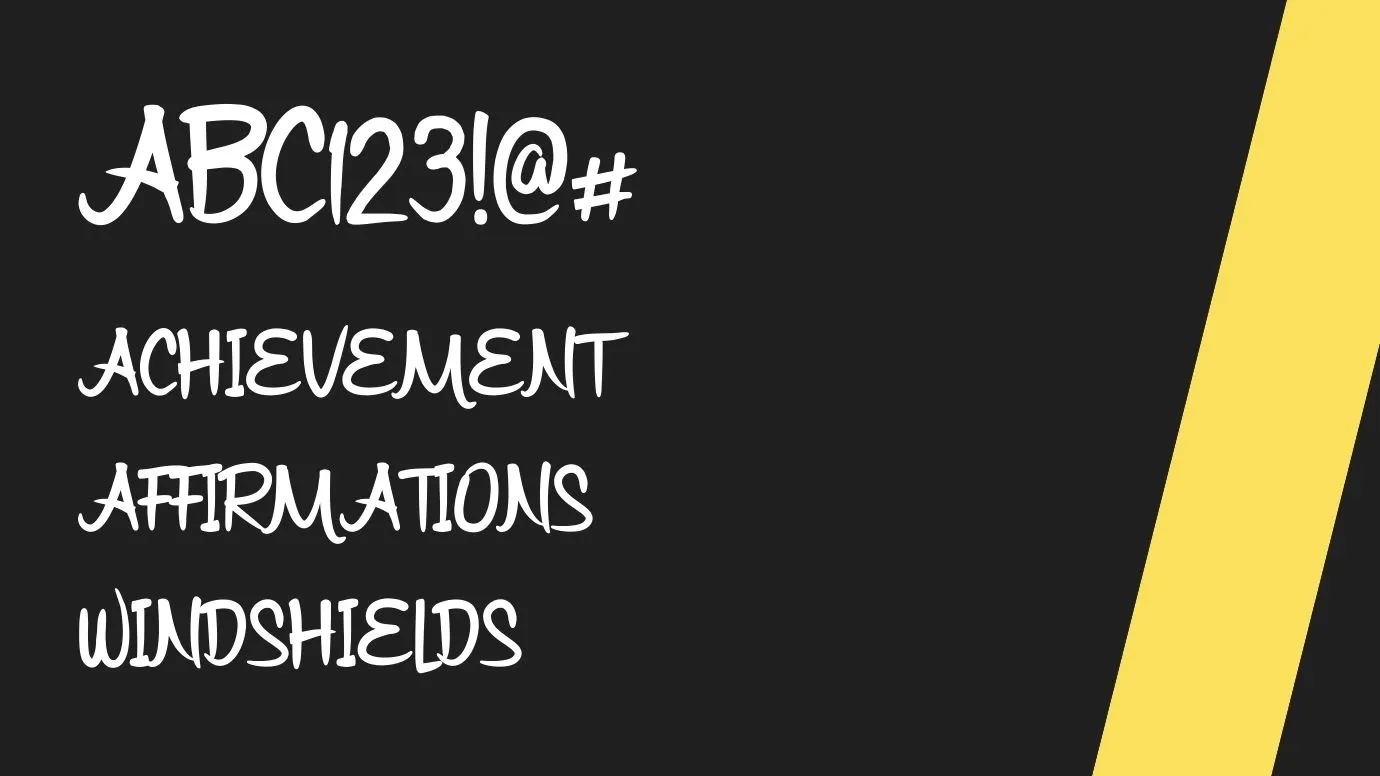
Let us introduce to you a top-notch handwritten font from the font family that will virtually give your project a natural handwritten look named Bijak Script Font which was designed by notable designer Khurasan.
Bijak Script Font is a very unique handwritten typeface. It is perfect for any project that needs a touch and class of glamour.
The typeface is distinctive, highly readable, and stylish and can be easily compared to desyrel font. Both fonts give a pleasant and accurate appearance when you pair the typeface style with each other.
You can use the style of the font in various personal designs like headlines, body copy, and even small prints.
This font is perfect for printing projects like banners, posters, and even brochures. It is a very bold and eye-catching typeface with all the ingredients of a masterpiece font.
The first thing that comes to our mind when see the look of the font is the logo design. The design of the typeface is ideal for logo design projects.
This typeface is not an unprofessional font by any means. It is a versatile font that can be used in a variety of projects.
This font is a great choice for those who need a legible typeface for body texts or headlines. It supports various languages like English, Greek, Latin, etc.
Creator of Bijak Script Font
The creator of this amazing typeface is the famous designer Khurasan. He is known for his creativity.
Bijak Script Font Family Includes
- Bijak Script Regular
Bijak Script Font Details
| Name | Bijak Script Font |
| Designer | Khurasan |
Is Bijak Script Font a good font for print?
This font is commonly used for printing projects like banners, posters, and even brochures. You can use the style in various personal designs like headlines etc.
What fonts look good with the Bijak Script typeface?
There are a number of fonts that look good with Bijak Script texture. Some of our favorites include Desyrel font etc.